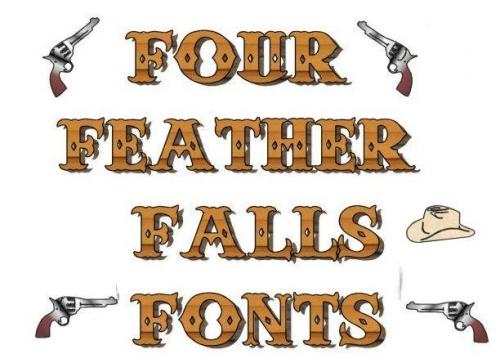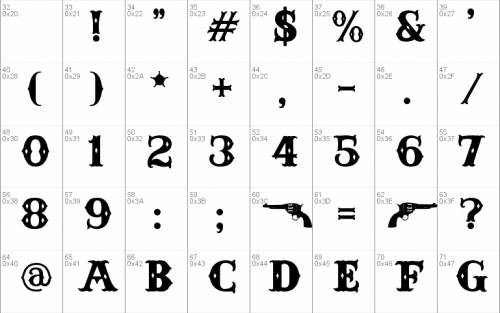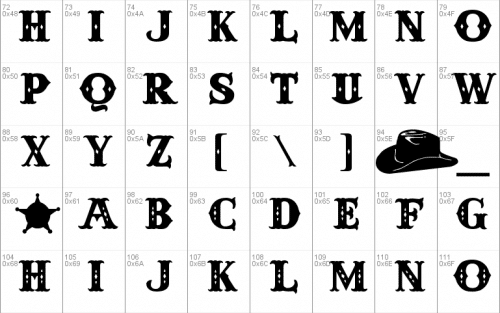
Anderson Four Feathers Falls Font is being used by the Spike TV series Tattoo Nightmares.
- Designer: Steve Ferrera
Anderson Four Feathers Falls Font is being used by the Spike TV series Tattoo Nightmares.